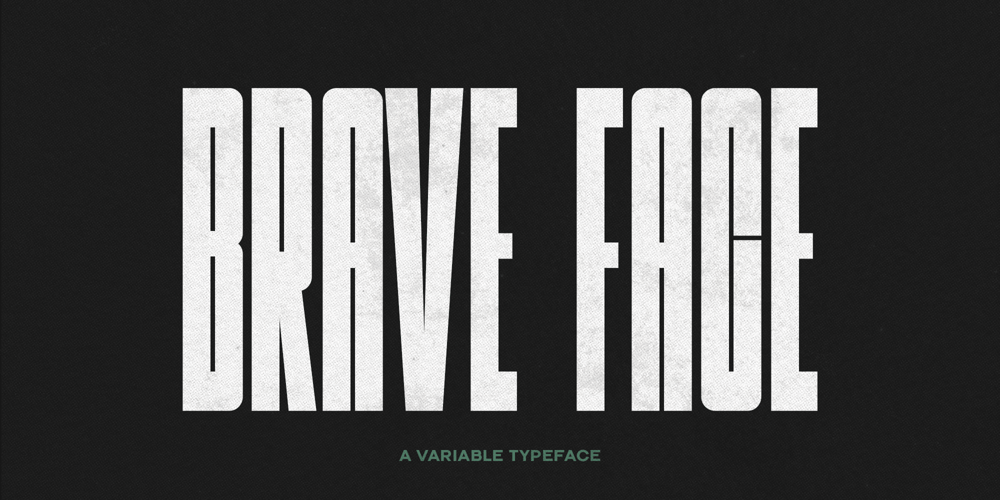
Brave Face
Brave Face font
Brave Face Font Family was designed by Chad Palmer and published by Palmer Type Company. Brave Face contains 2 styles and family package options. Brave Face is a brand new variable display typeface from Palmer Type Co that brings you a wide range from condensed to expanded weights. This font is bold, brave and can serve a variety of uses. Enjoy!